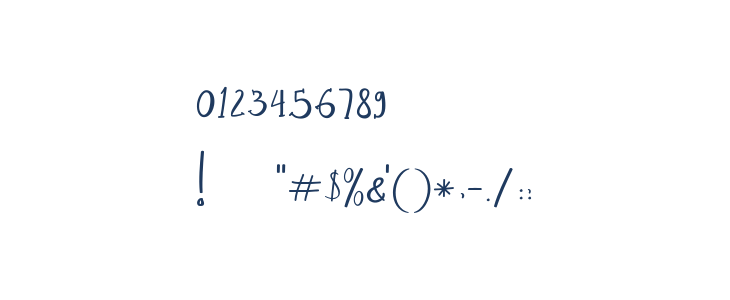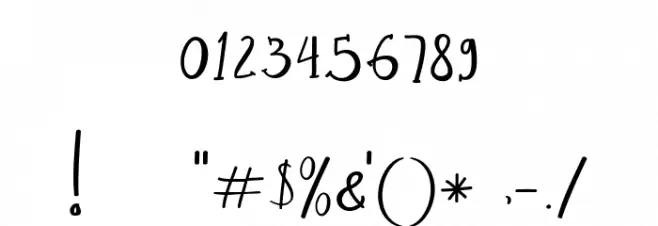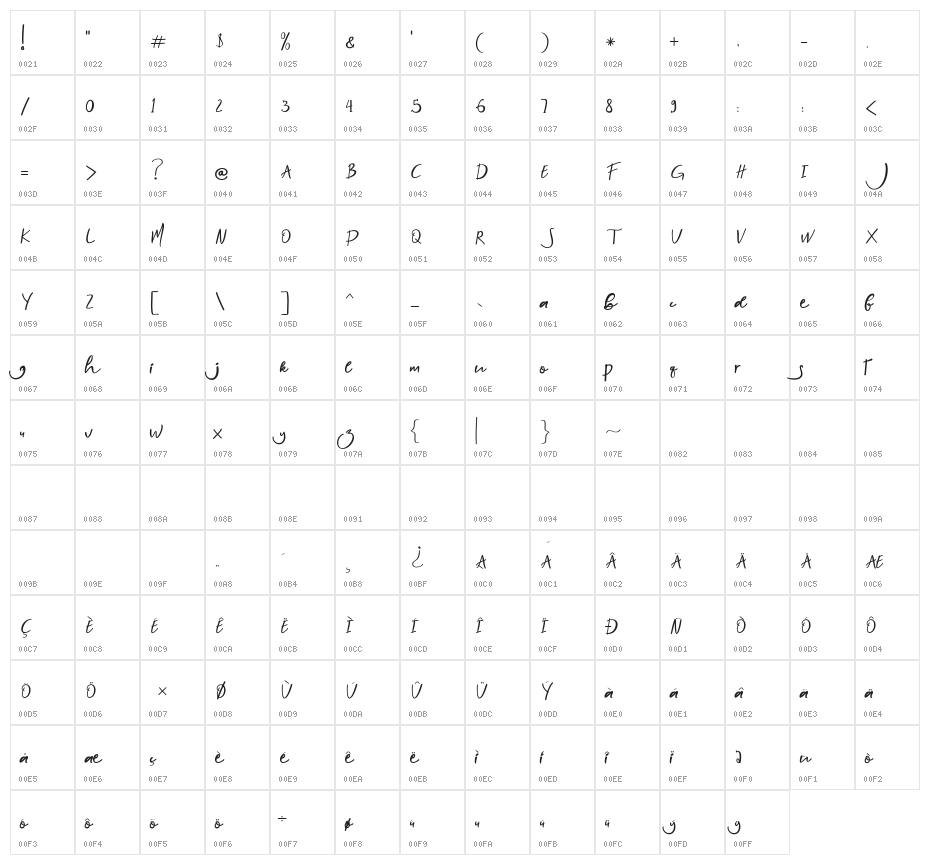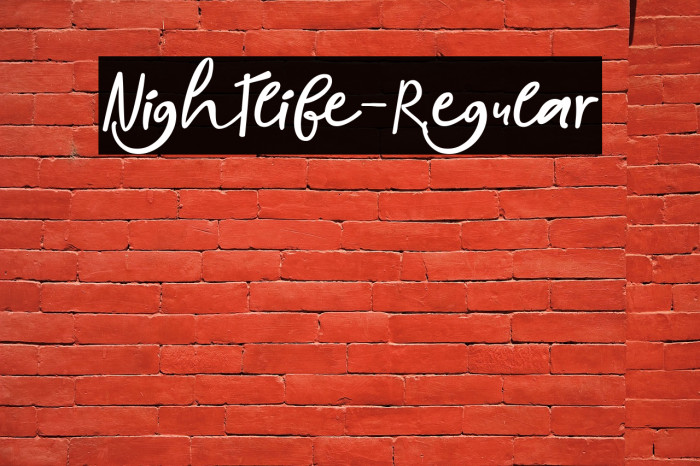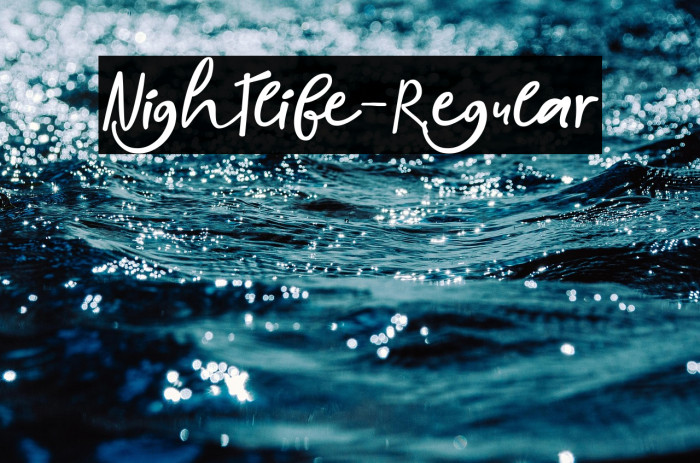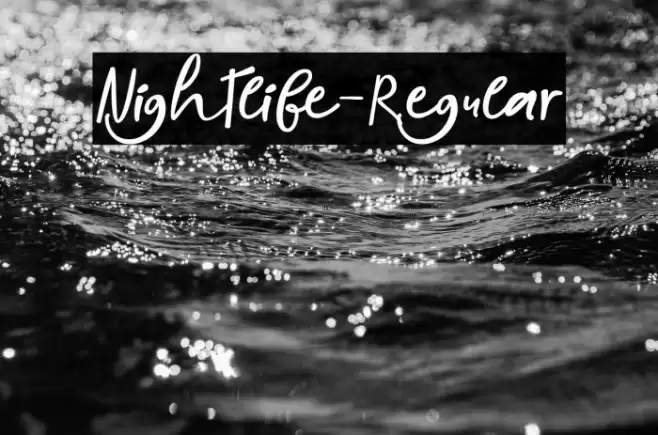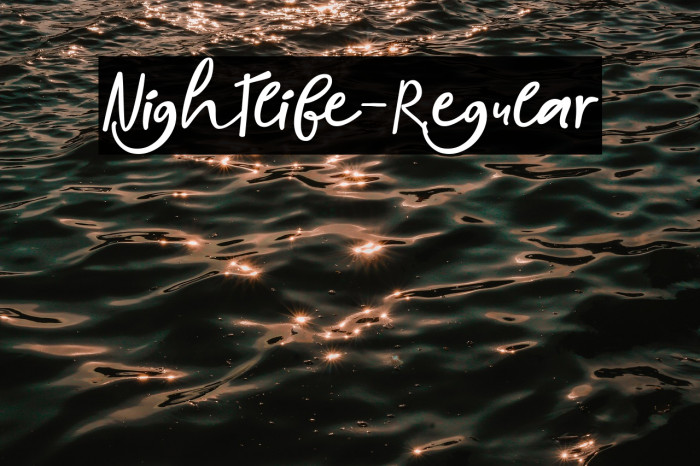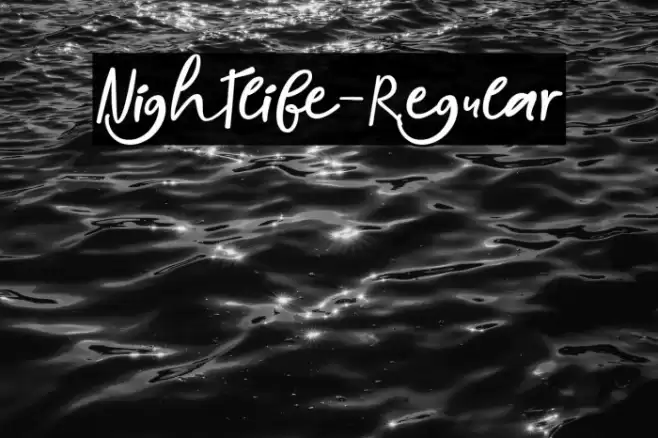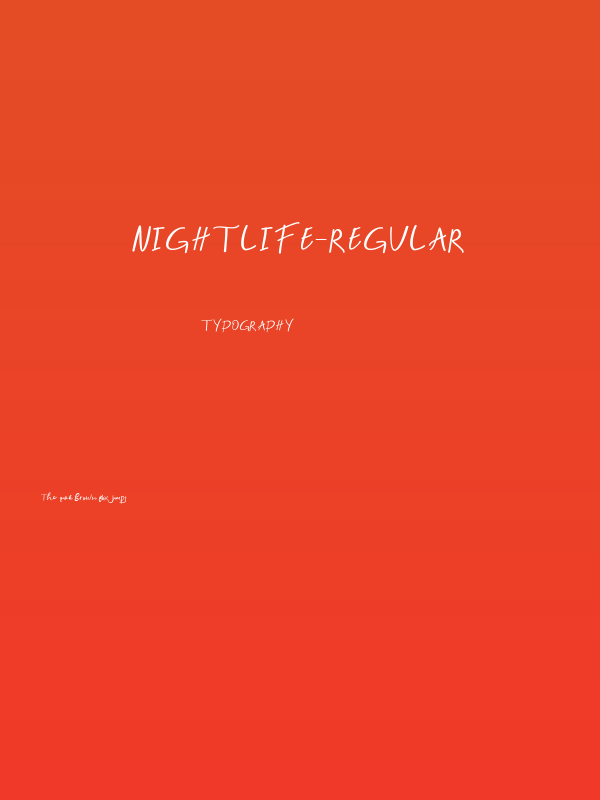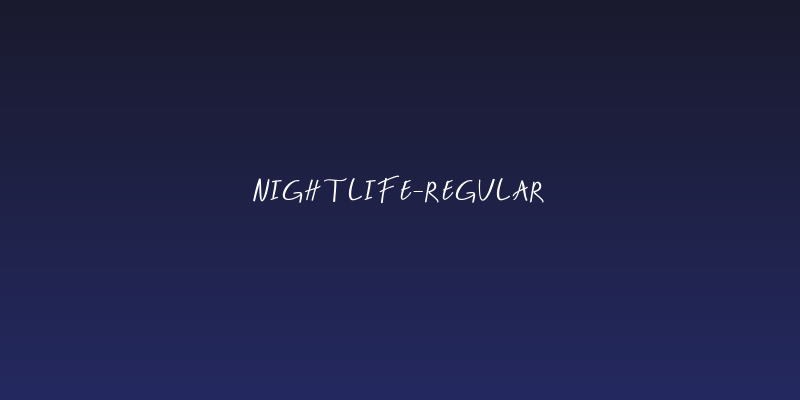
Nightlife-Regular Font
Nightlife-Regular Description
This font exudes a lively and dynamic energy with its playful, handwritten style. The uppercase letters are tall and slightly narrow, with a whimsical flair that adds character to each letterform. The lowercase letters maintain a consistent flow, featuring smooth curves and a casual, yet elegant appearance. Numbers are clear and legible, complementing the overall style. Special characters are thoughtfully designed, maintaining the font's cohesive look. This font is perfect for projects that require a touch of personality and creativity.
| Proposed Projects | Ideal for event invitations, greeting cards, branding projects, and social media graphics. |